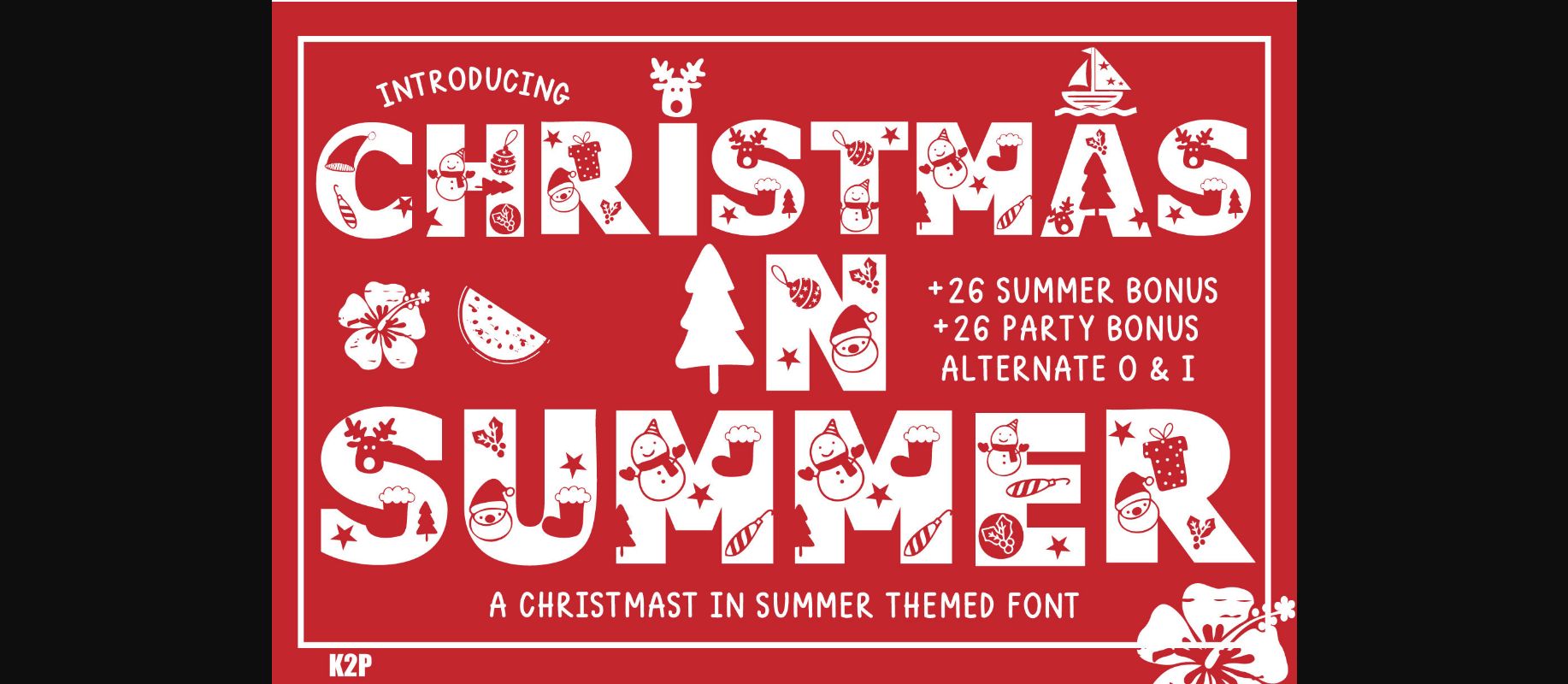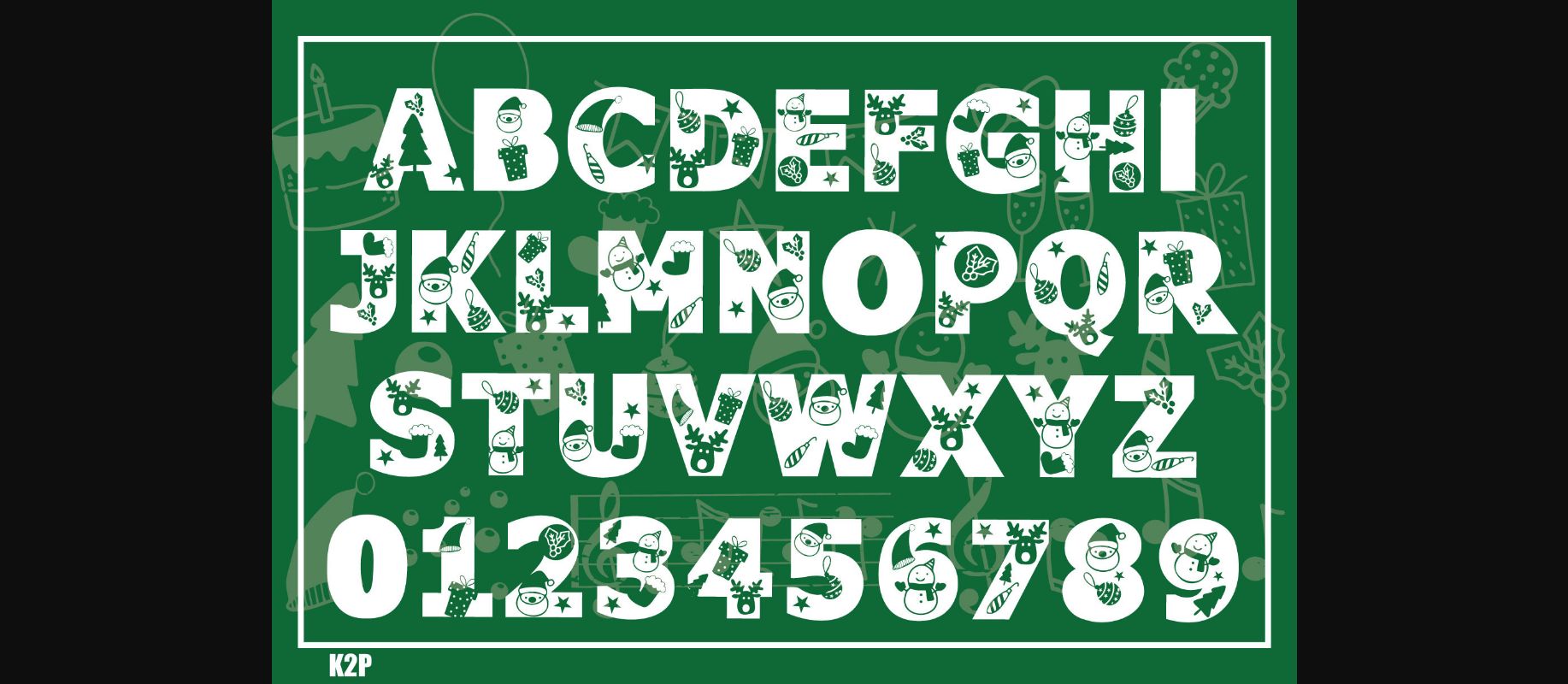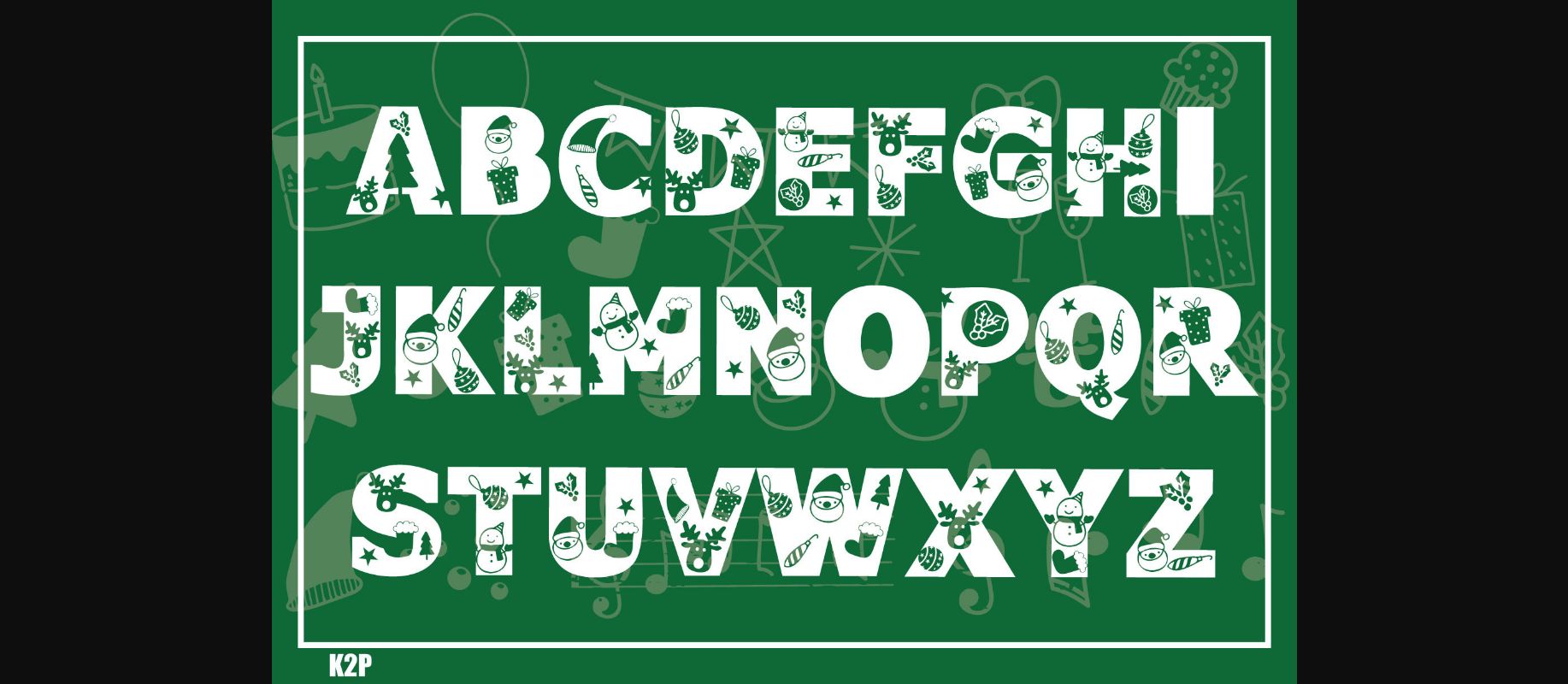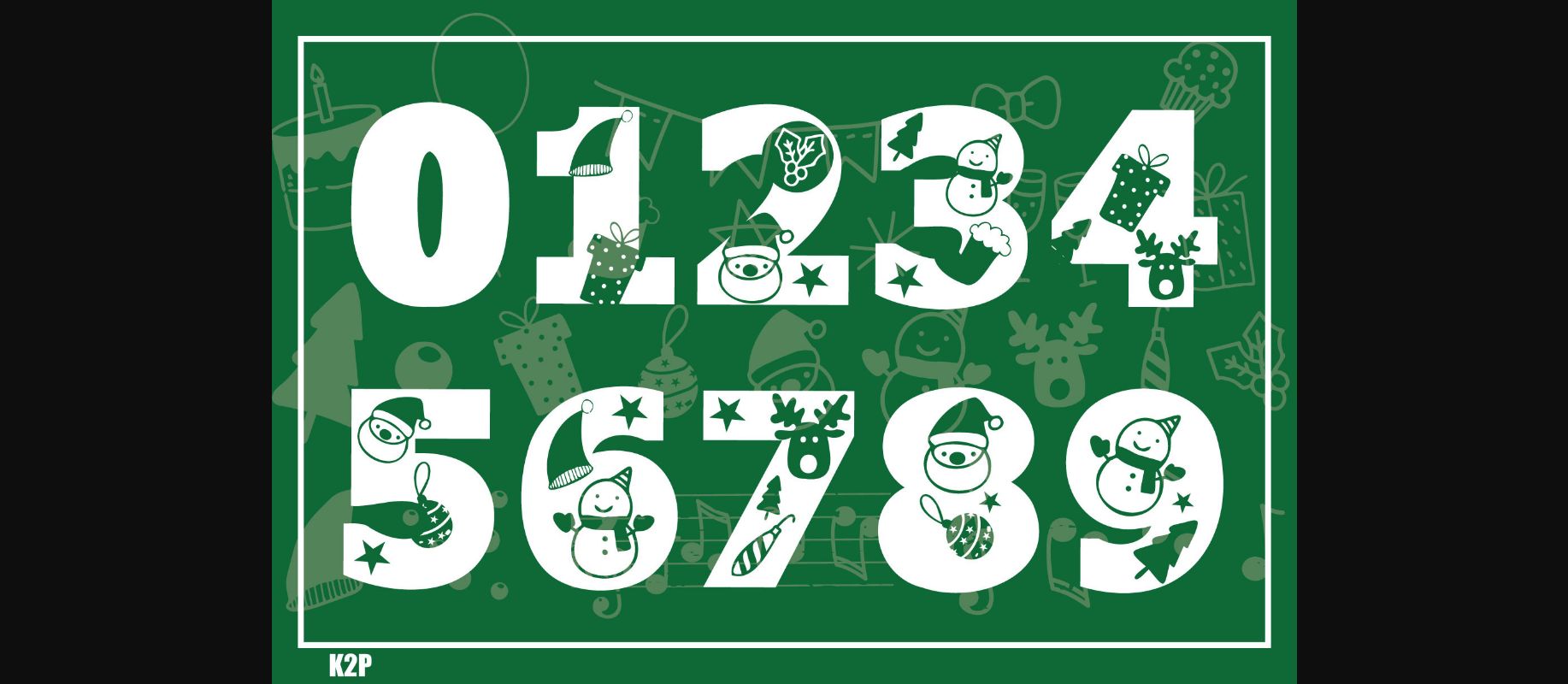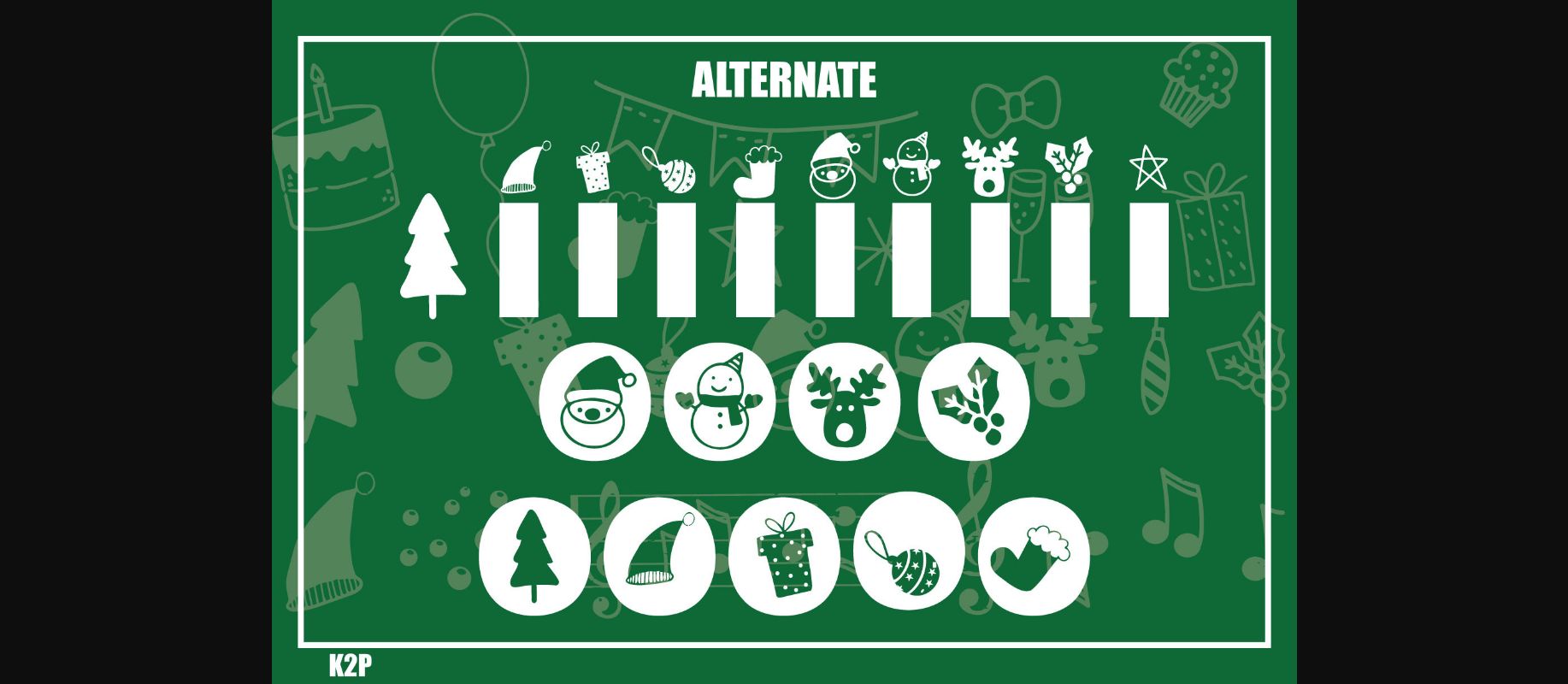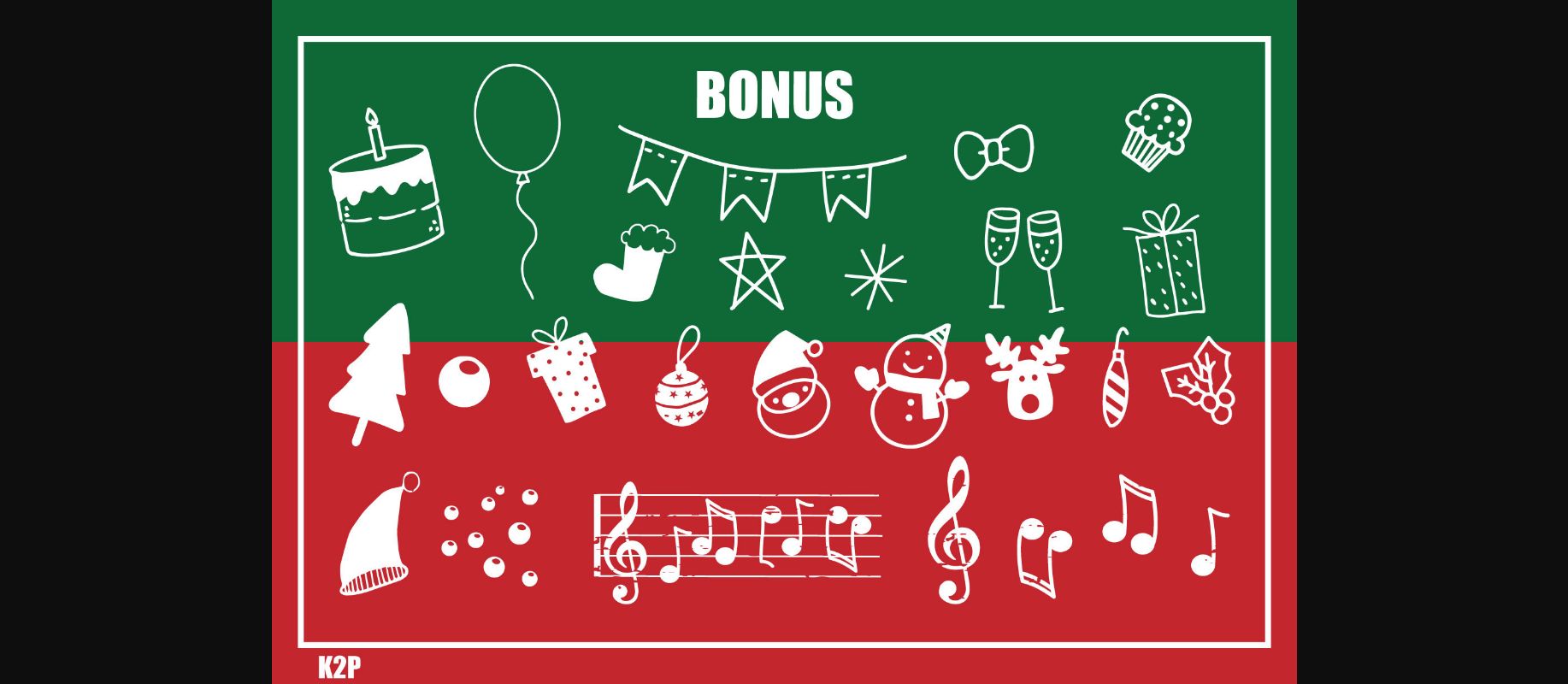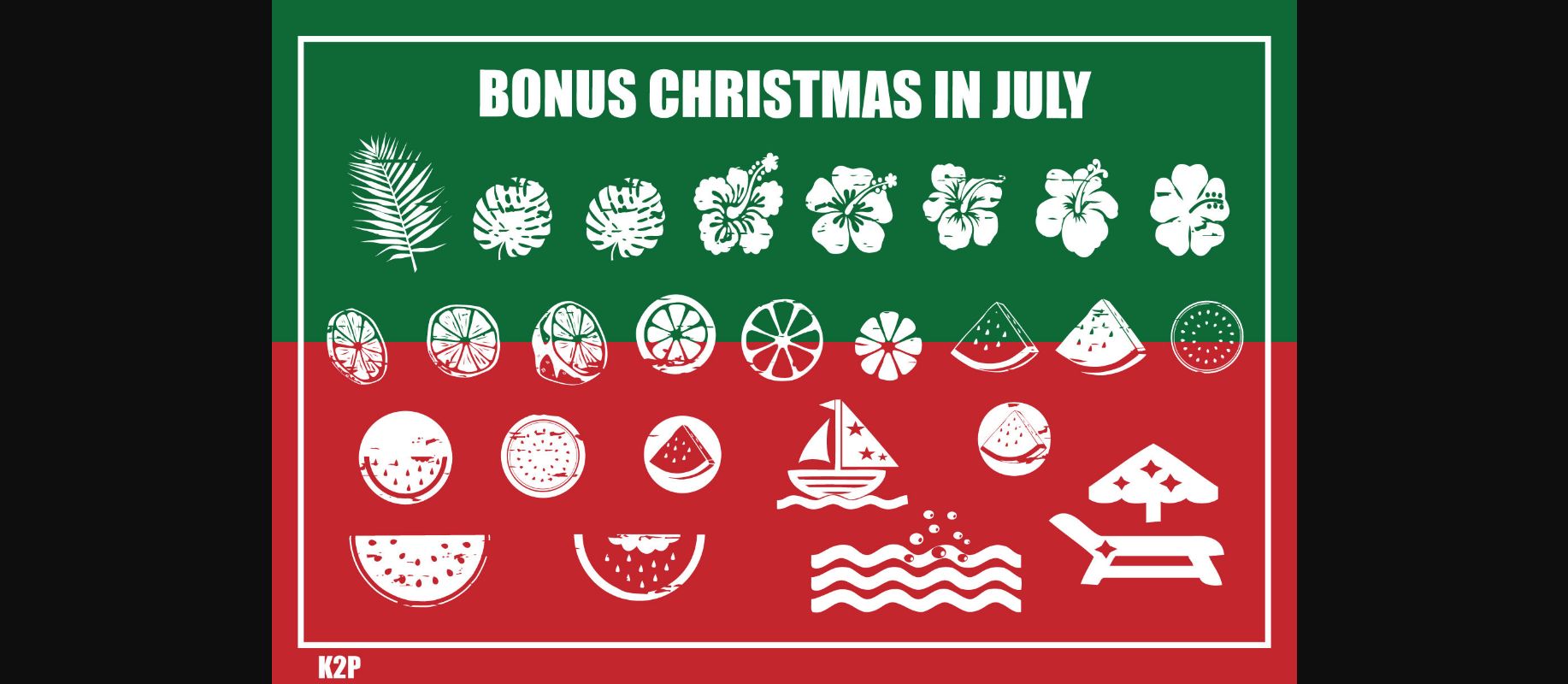
About Christmas in Summer Font
Christmas in Summer is a thick lettered and incredibly unique decorative font. It can be used for various design ideas, particularly those related to the Christmas holiday. This font is PUA encoded which means you can access all of the glyphs and swashes with ease!